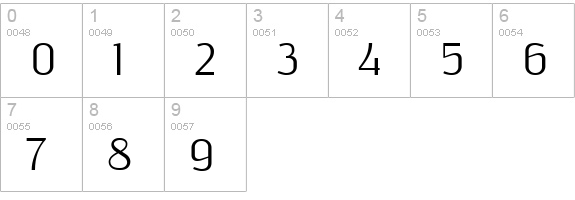
Resagnicto Font Details
Resagnicto font is a visually stunning typeface that exudes elegance and sophistication. With its sleek and modern design, this font is perfect for adding a touch of refinement to any project. Its clean lines and graceful curves make it a versatile choice for both print and digital designs. What sets Resagnicto font apart is not only its exquisite aesthetics but also its accessibility. This font is available for free download at FontsMarket.com, making it an ideal choice for designers on a budget. Whether you are working on a personal project or a professional endeavor, Resagnicto font offers you the opportunity to elevate your work without breaking the bank. The versatility of Resagnicto font is evident in its wide range of applications. From elegant wedding invitations to modern business cards, this font can effortlessly adapt to any design concept. Its legibility ensures that your message is conveyed with clarity, while its unique style adds a touch of sophistication. Resagnicto font is not only visually appealing but also easy to work with. Its well-crafted letterforms ensure smooth readability, even at smaller sizes. This makes it an excellent choice for body text in magazines, brochures, and websites. Its versatility extends to various design mediums, such as logos, headlines, and branding materials. Downloading Resagnicto font is a breeze, as it is freely available at FontsMarket.com. This platform offers a wide selection of high-quality fonts, ensuring that you can find the perfect typeface for your next project. The ease of access to Resagnicto font allows you to add a touch of elegance to your designs without any hassle. In conclusion, Resagnicto font is a visually stunning typeface that embodies elegance and sophistication. Its sleek design, versatility, and accessibility make it a valuable asset for designers. Whether you are working on personal or professional projects, Resagnicto font is the perfect choice to elevate your designs. Download it for free at FontsMarket.com and unlock endless possibilities for your creative endeavors.